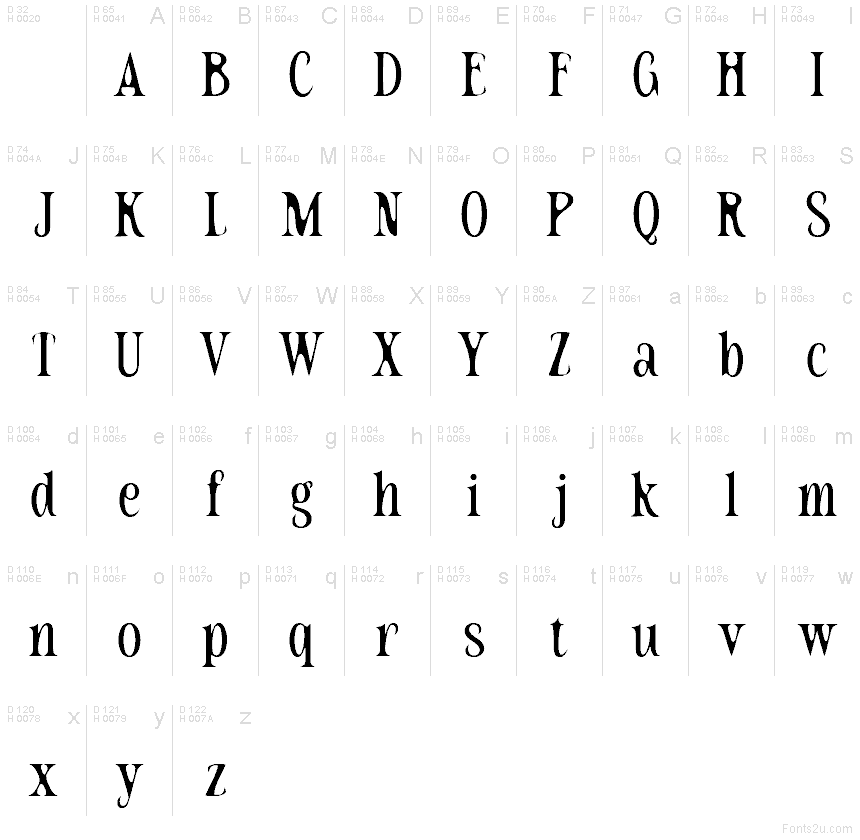
CSLenoxDrawn-Regular Demo
CS Lenox Drawn font by Craft Supply Co. is a condensed retro display font that showcases an elegant style. Its high contrast design along with sophisticated classic serif shapes makes it authoritative in all your important typography projects. Widely-spaced capital letters that possess square corners add even more dominance and grace to the free typeface.